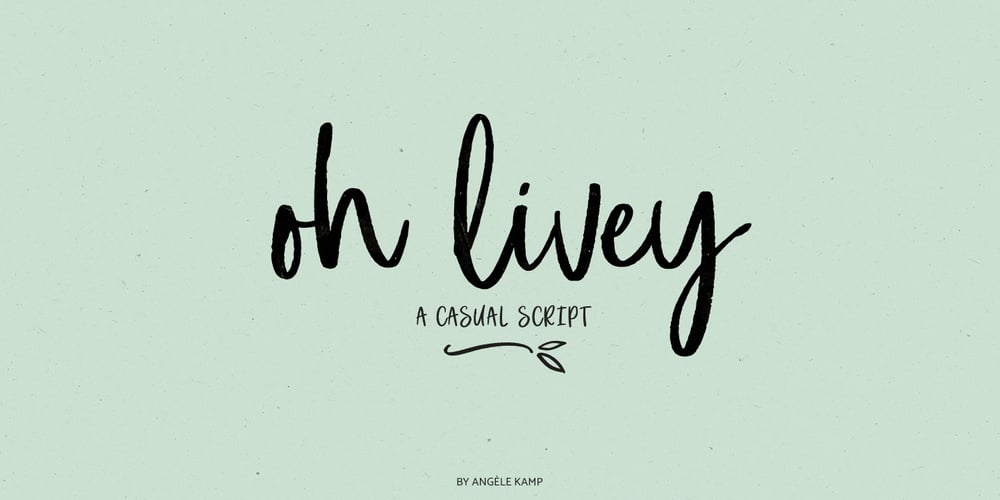
Oh Livey Font Family was designed by Angele Kamp and published by Angele Kamp. Oh Livey contains 1 styles and family package options. Oh Livey is a casual brush script that has a fun, modern vibe. Put it on everything from quotes and websites, and use the extra clipart to make designing so much easier and fun. Oh Livey contains lots of ligatures which will give it that authentic handwritten feel.